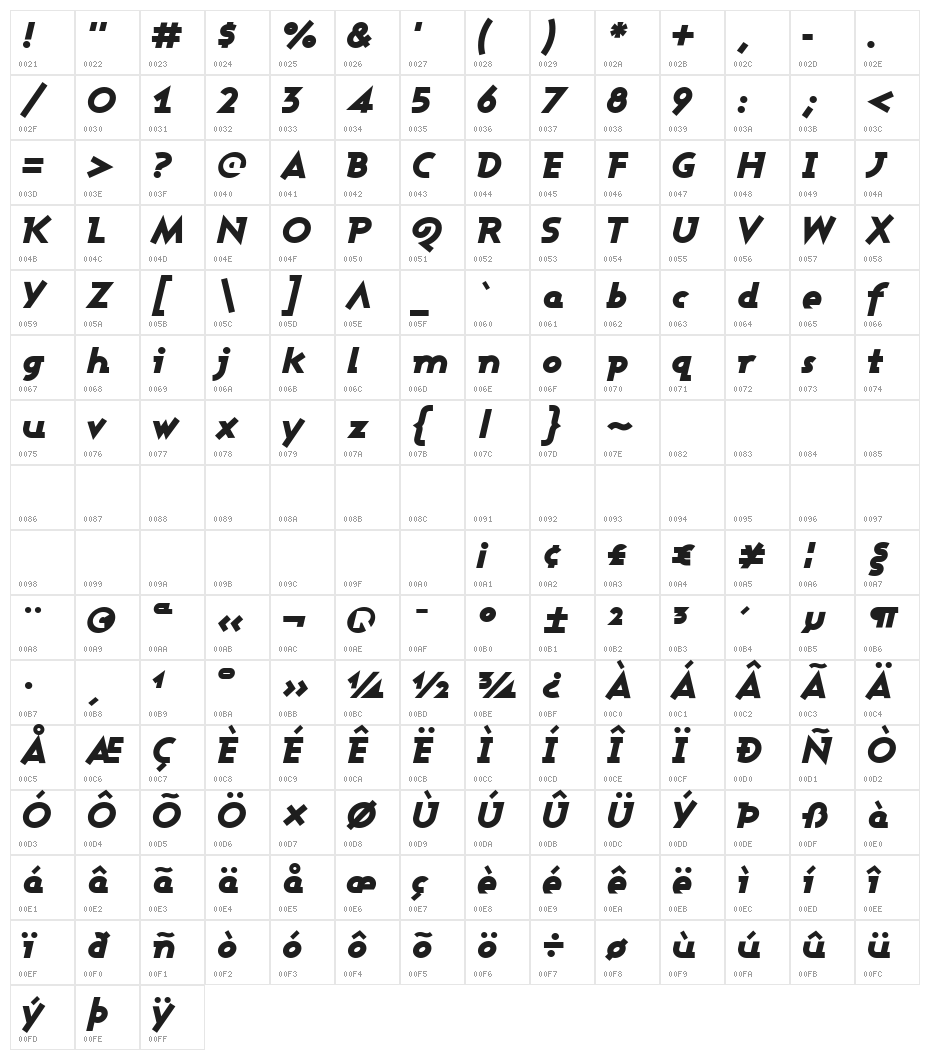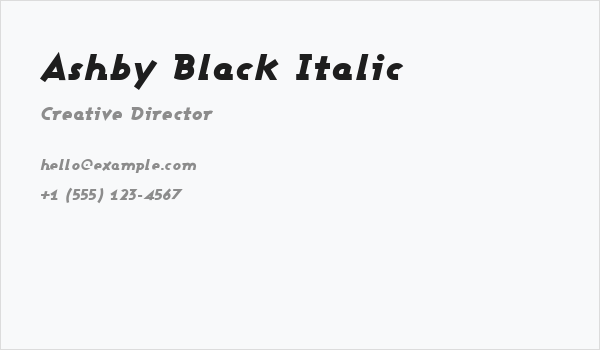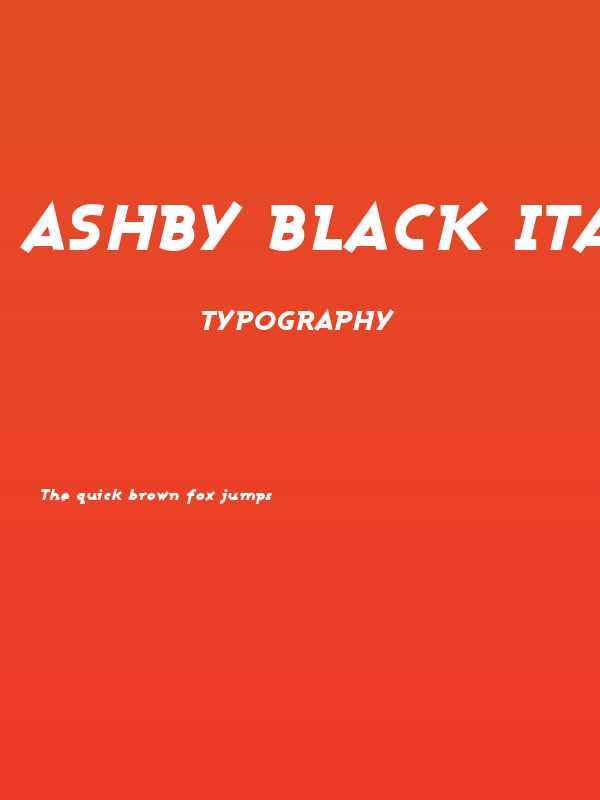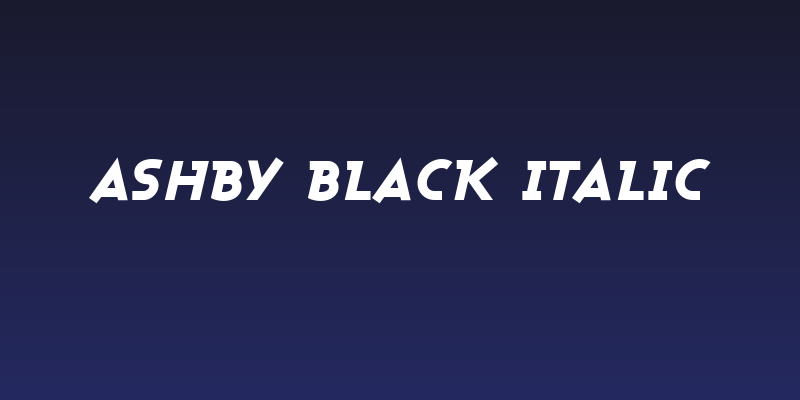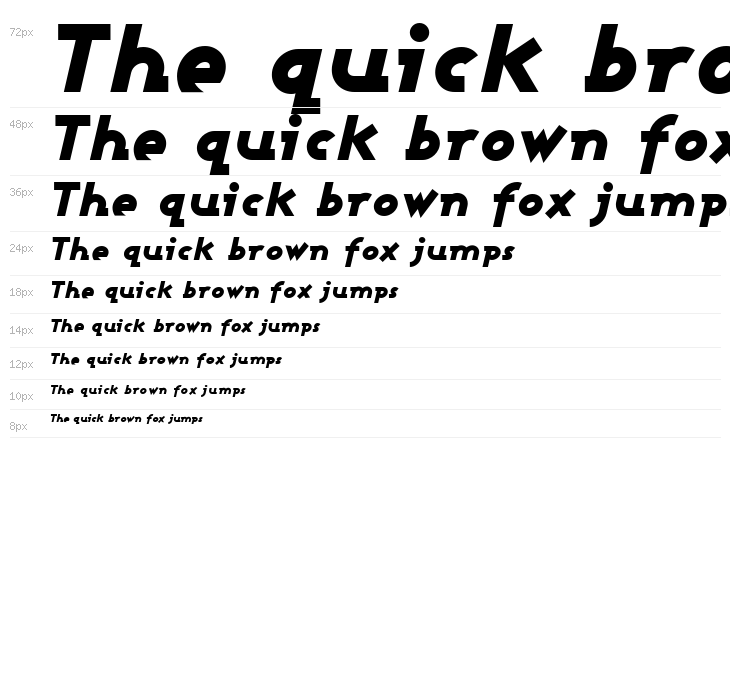
Ashby Black Italic Font
Ashby Black Italic Description
This font features a bold and dynamic style with a pronounced italic slant, giving it a sense of movement and energy. The characters are robust and solid, with a strong presence that makes them stand out. The uppercase letters have a geometric influence, while the lowercase letters maintain a consistent flow, enhancing readability. The numbers and special characters are designed to match the boldness and style of the alphabet, ensuring uniformity across all text. This font's unique style makes it suitable for impactful and attention-grabbing designs.
| Proposed Projects | Ideal for branding, posters, headlines, and any design that requires a strong visual impact. |